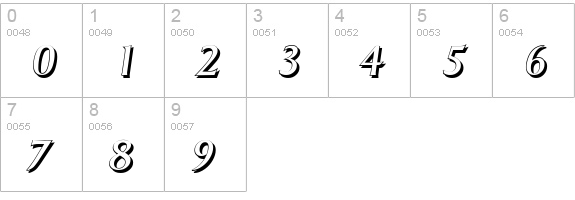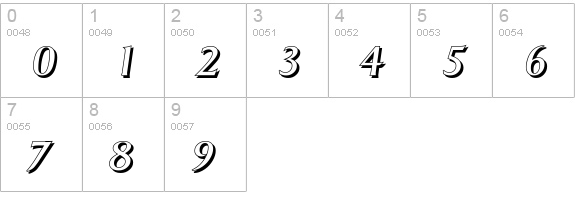
SigvarShadow-Italic Font Details
SigvarShadow-Italic is a distinctive, italic variant in the SigvarShadow typeface family \xE2\x80\x94 well suited to design and typography projects.
SigvarShadow-Italic font is a unique and elegant typeface that exudes a sense of mystery and sophistication. Its slanted, shadowed design adds a touch of drama to any project, making it perfect for creating eye-catching titles and headlines. The italicized style of the font gives it a modern and dynamic look, while maintaining a sense of classic elegance. What sets SigvarShadow-Italic font apart is not only its stunning design, but also the fact that it is available for free download at FontsMarket.com. This means that you can easily add this stylish font to your collection without any cost, making it a valuable resource for designers, creatives, and anyone looking to enhance their projects with a touch of sophistication. Whether you're working on a branding project, creating social media graphics, or designing a poster, SigvarShadow-Italic font is sure to elevate your work with its unique style and versatility. Download it for free today and see the impact it can make on your designs!